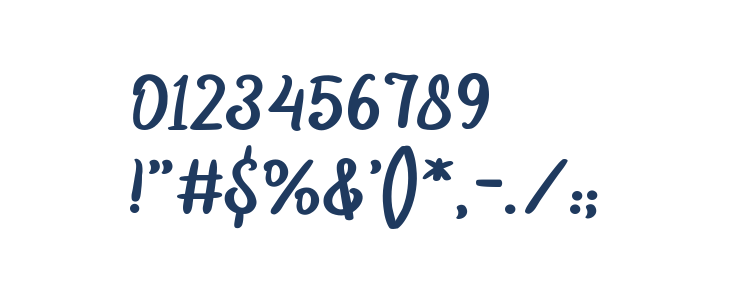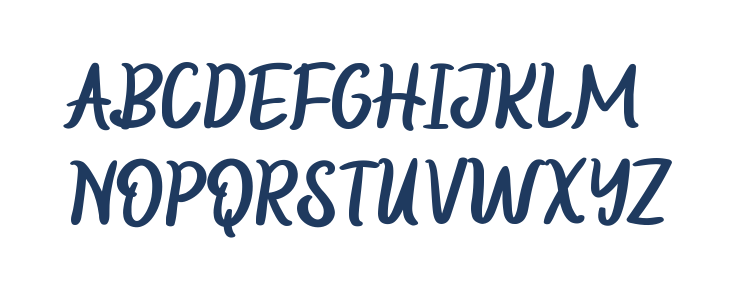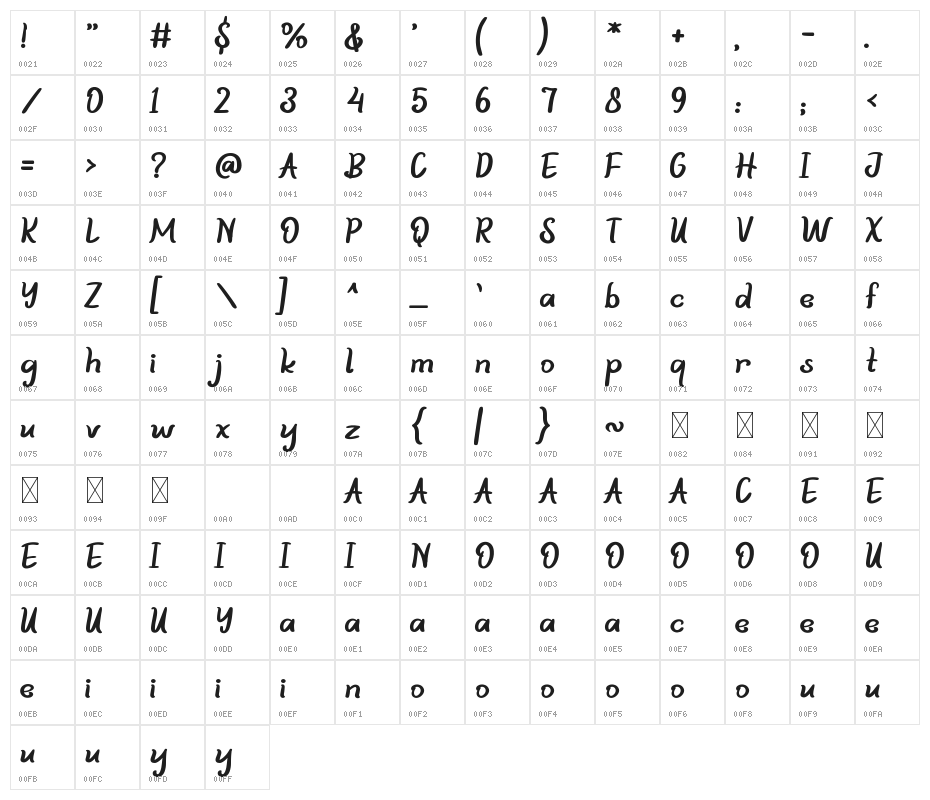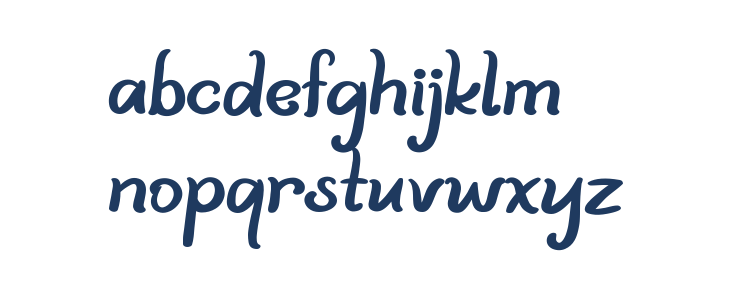
PLATEAU Font
A playful, handwritten script font with smooth, flowing curves and consistent stroke width. The characters have a casual, informal feel, with rounded terminals and a slight rightward slant, giving it an energetic and friendly appearance.
| Overall Style | Casual, Playful, Handwritten |
| Use Case | Logos, Headlines, Invitations, Posters |
| Proposed Projects | Greeting cards, invitations, branding for creative businesses, posters, social media graphics. |